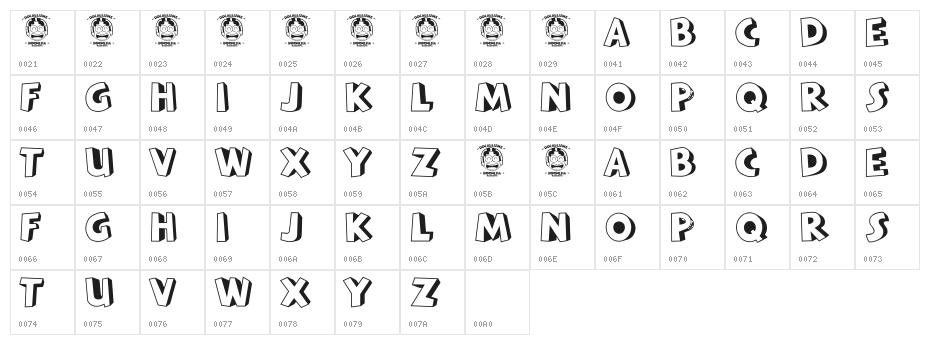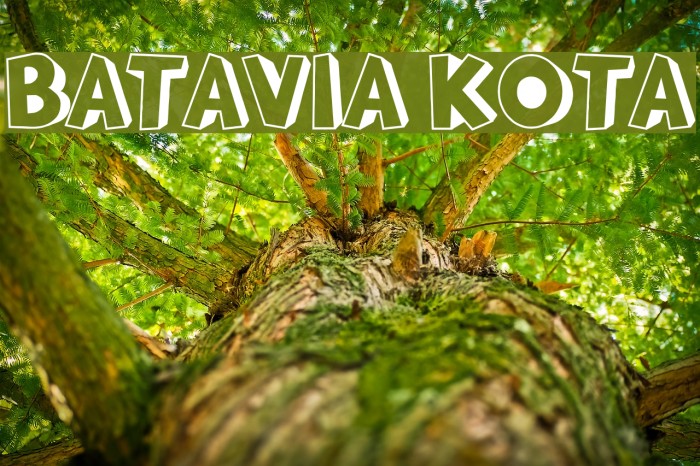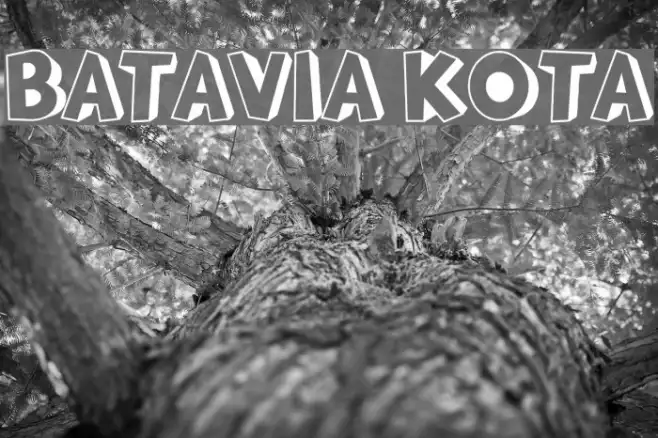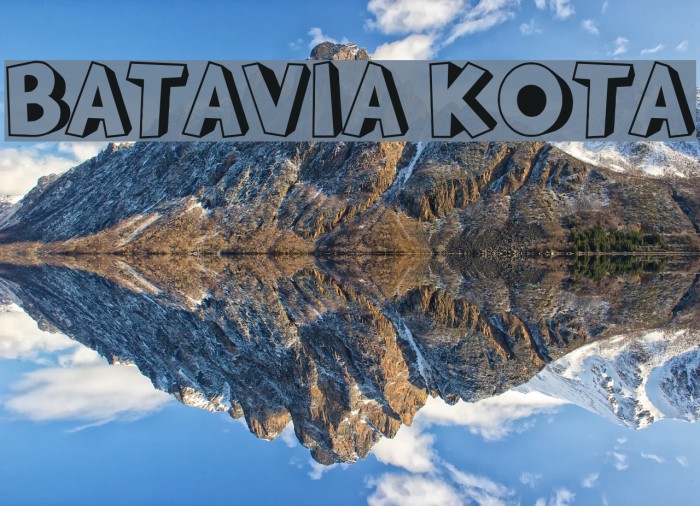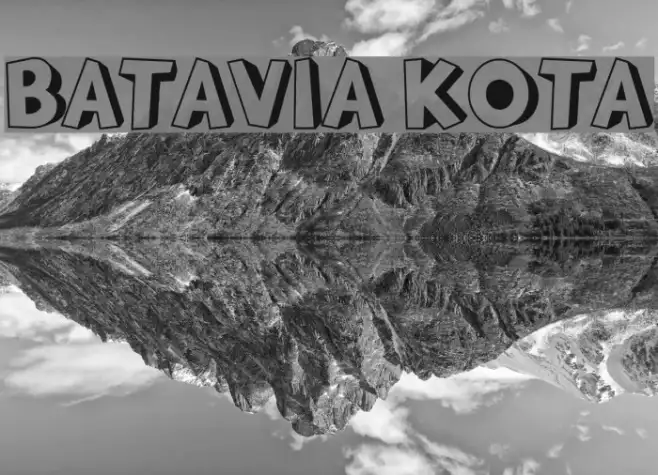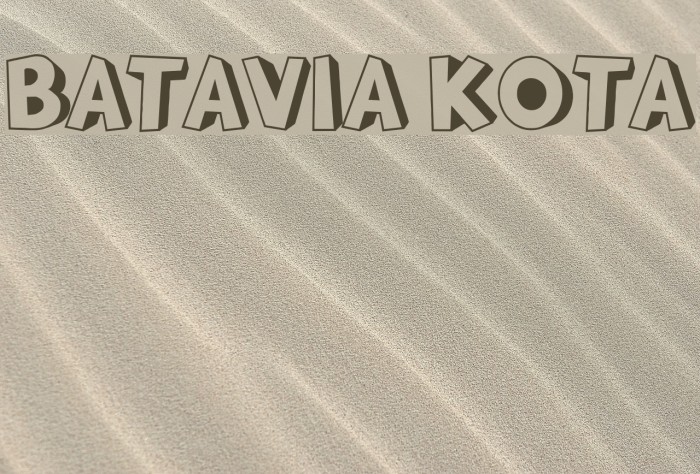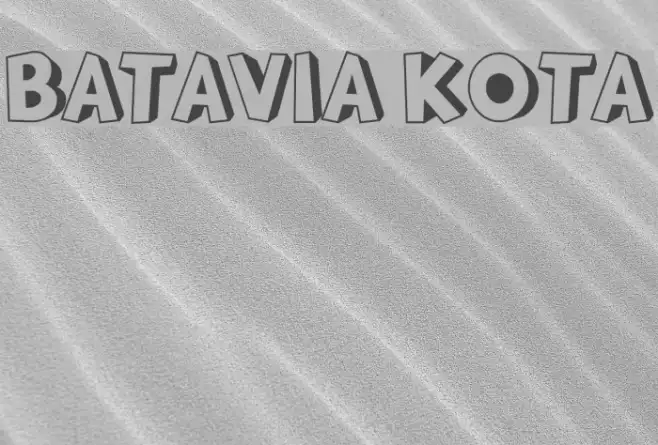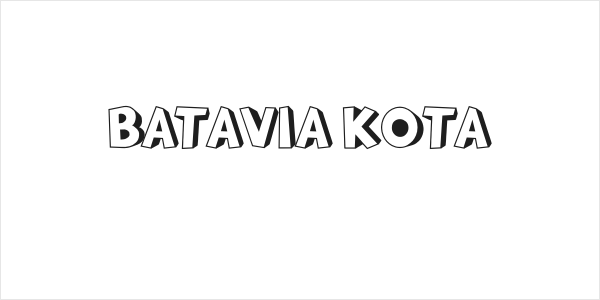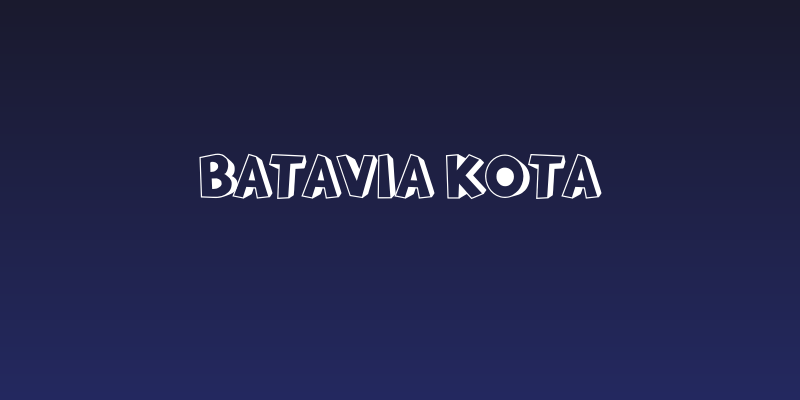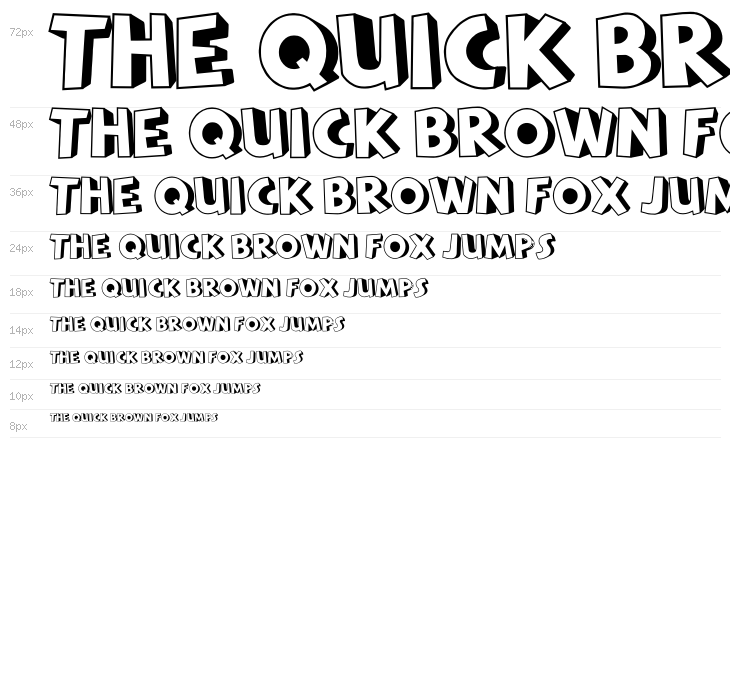
BATAVIA KOTA Font
BATAVIA KOTA Description
This font features bold, three-dimensional letters with a playful and dynamic style. The characters have a strong presence, with thick strokes and a shadow effect that gives them a sense of depth. The uppercase letters are particularly striking, making them ideal for attention-grabbing headlines or titles. The font's design is reminiscent of comic book lettering, with a fun and energetic vibe that adds a touch of whimsy to any project. The spacing between characters is consistent, ensuring readability while maintaining the bold aesthetic. This font is perfect for projects that require a lively and engaging visual impact.
Overall StylePlayful, Comic
Use CaseHeadlines, Posters, Branding
Proposed ProjectsIdeal for comic books, children's books, posters, and playful branding.